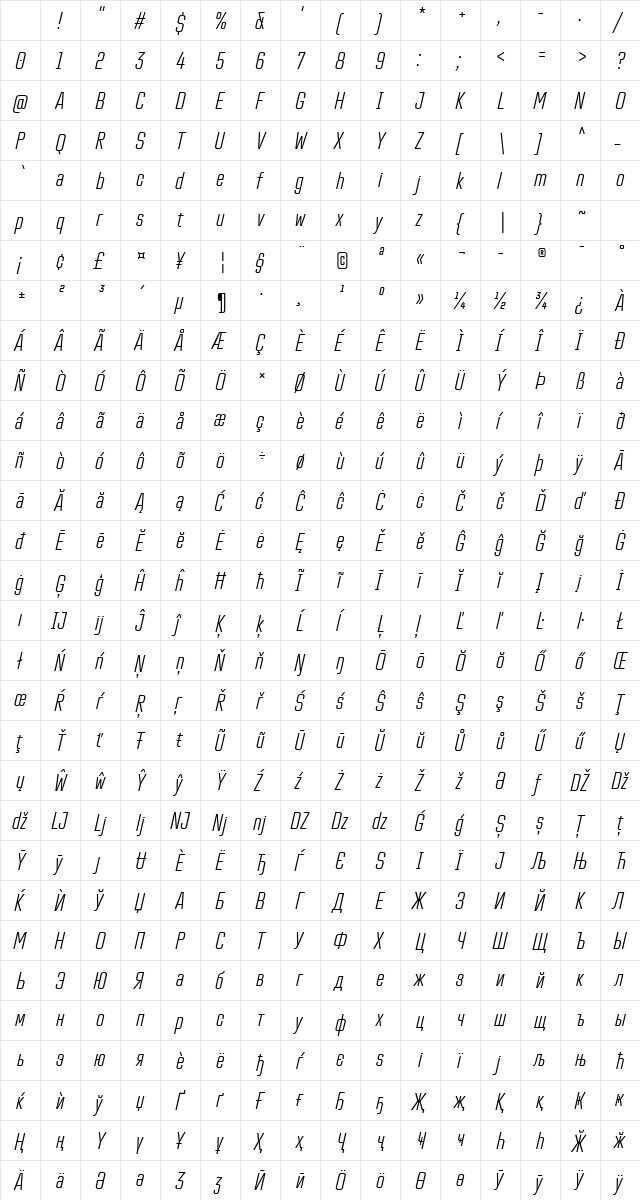
TT Lakes Neue Trl Cmd Lt It Free Font
TT Lakes Neue Trl Cmd Lt It
Style: Lt It
Designer: Designers Vika Usmanova, Ksenia Ushakova, Antonina Zhulkova, Tamara Streltsova, Anastasia Pogorelova, Marina Khodak. Technical designers Yulia Gonina, Ivan Gladkikh, Yuriy Nako, Viktor Rubenko.
Design Context for TT Lakes Neue Trl Cmd
TT Lakes Neue Trl Cmd is a composed and adaptable typeface that performs quietly and consistently across a wide range of design contexts. Its slender proportions lend an understated elegance to any composition.